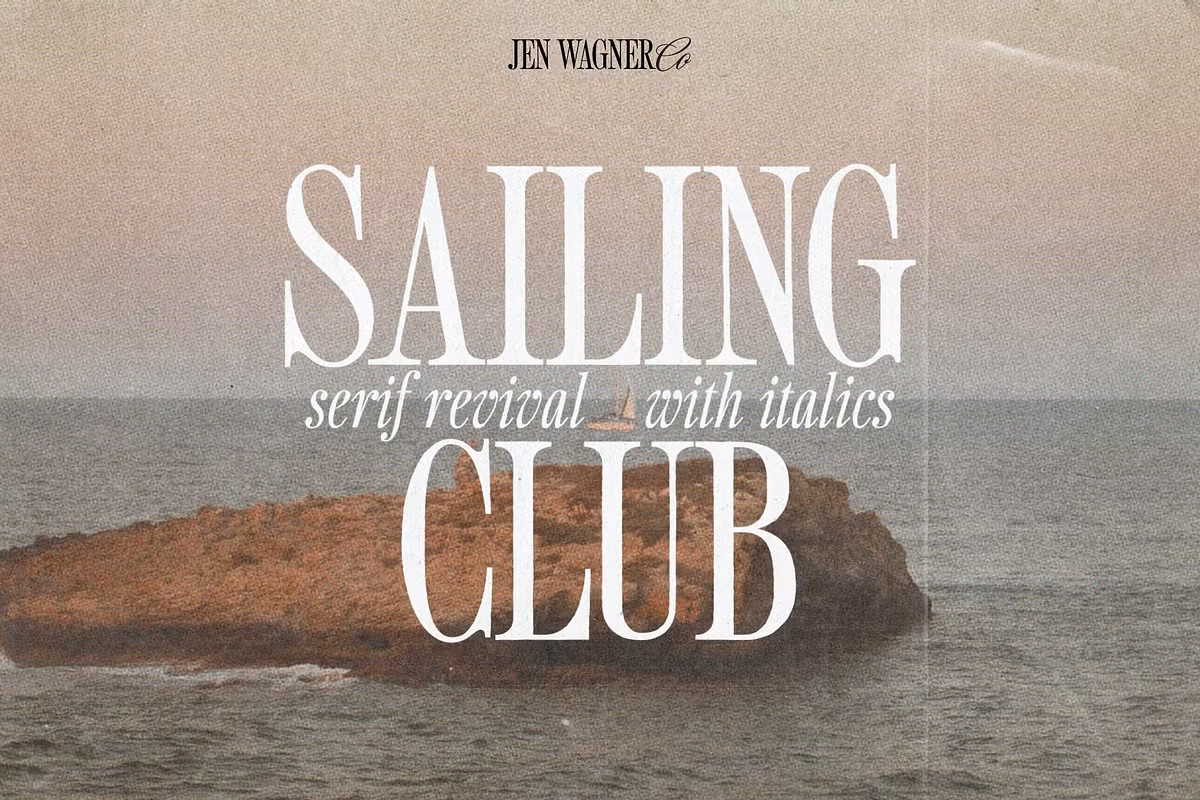
Sailing Club | Nostalgic Serif Font Free Download is a charming serif typeface that instantly evokes feelings of seaside adventures, summer breezes, and timeless elegance. Inspired by classic editorial styles and vintage travel posters, this font is ideal for logos, magazine headers, wedding invitations, and upscale branding projects that need a touch of sophistication and warmth.
Its beautifully tapered serifs and balanced letterforms give your text a refined look while maintaining readability across various formats. Whether you're designing for print or digital platforms, this typeface brings a subtle sense of nostalgia that connects emotionally with your audience.